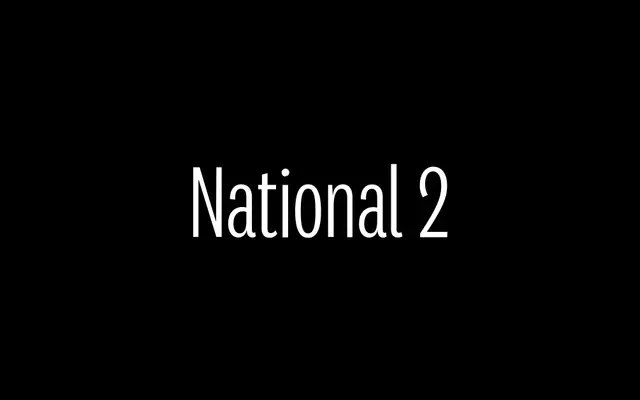
National 2 Compressed
Klim Type Foundry · Kris Sowersby · 2017
National 2 Compressed specimen from Klim Type Foundry
The tightest width in the National 2 system, an Akzidenz-rooted grotesque drawn for headlines and dense column setting.
The compressed cut of National 2 by Kris Sowersby, the tightest of three new widths added in the 10-year overhaul of National. Sixteen styles run from Thin to Black with matching italics, all redrawn and remastered with refined curves and better weight distribution. Sits inside the wider National 2 system alongside National 2, Narrow and Condensed, so the same Akzidenz-era voice carries from running text into very tight headlines.
Klim classifies it as Modern: Lineal/Grotesque; the tightest of three new widths added in the 10-year overhaul of National, drawing details from the era of Akzidenz-Grotesk for a humble, workmanlike character.